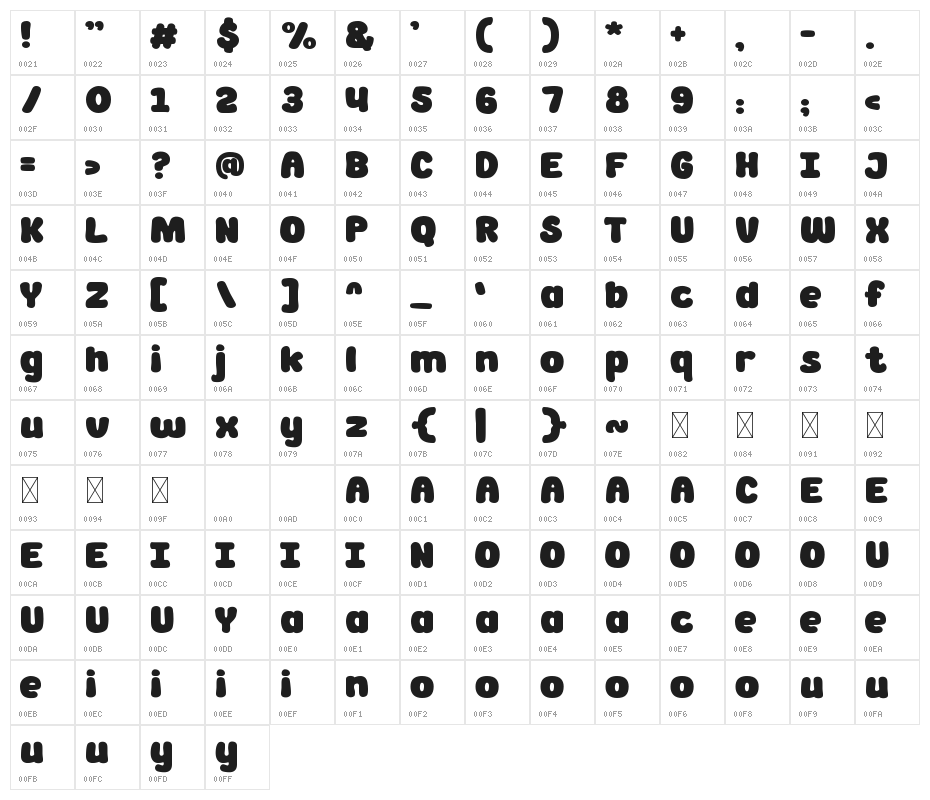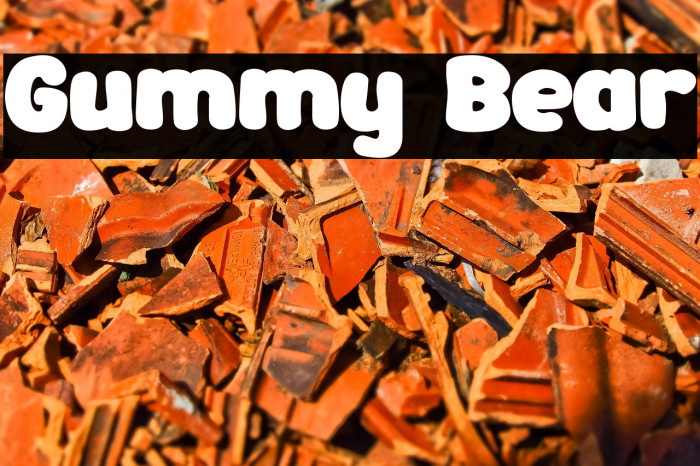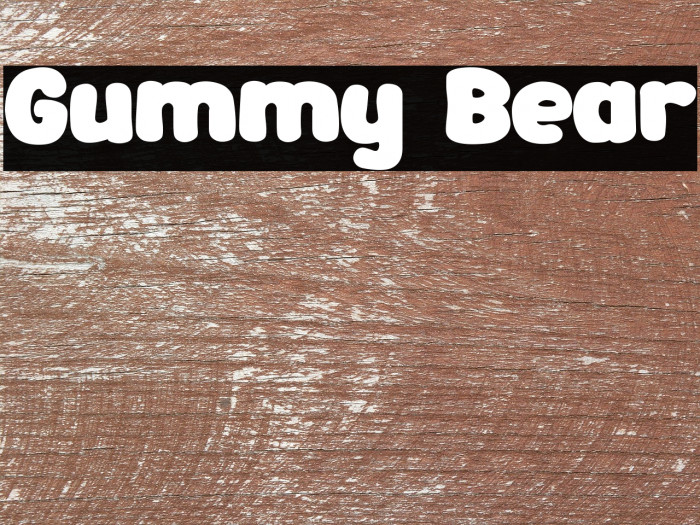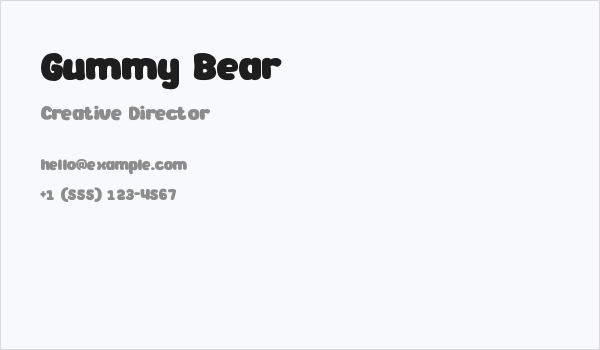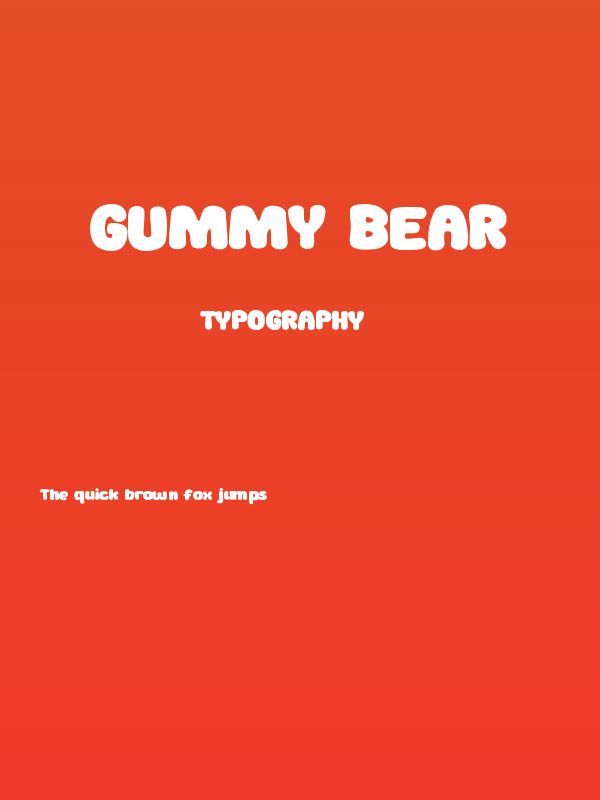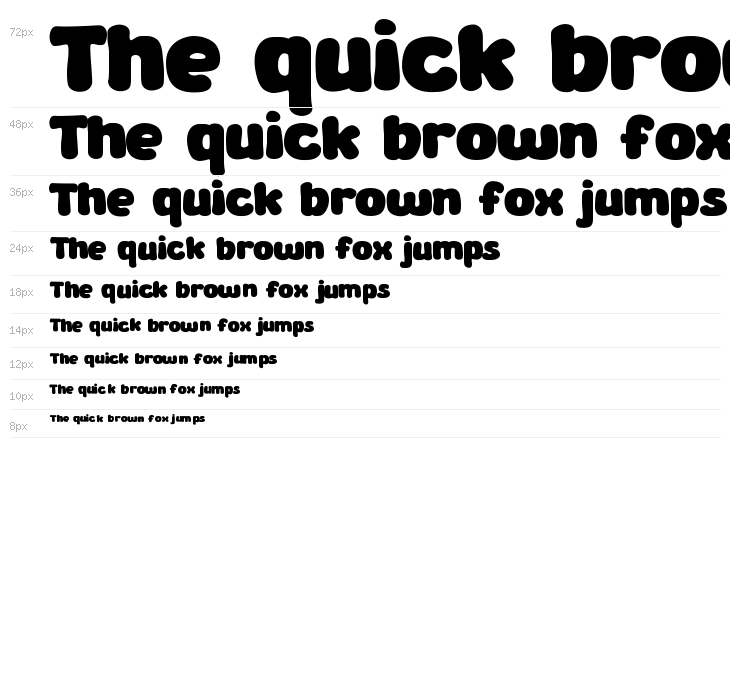
Gummy Bear Font
Gummy Bear Description
This playful and bold font features rounded, bubble-like characters that exude a sense of fun and whimsy. The letters are thick and substantial, with a uniform stroke width that gives them a cohesive and solid appearance. The overall design is reminiscent of soft, squishy shapes, making it ideal for projects that require a friendly and approachable aesthetic. The font includes a full set of uppercase and lowercase letters, numbers, and a variety of special characters, ensuring versatility in its application.
| Proposed Projects | Ideal for children's books, playful branding, party invitations, and any project that requires a fun and whimsical touch. |